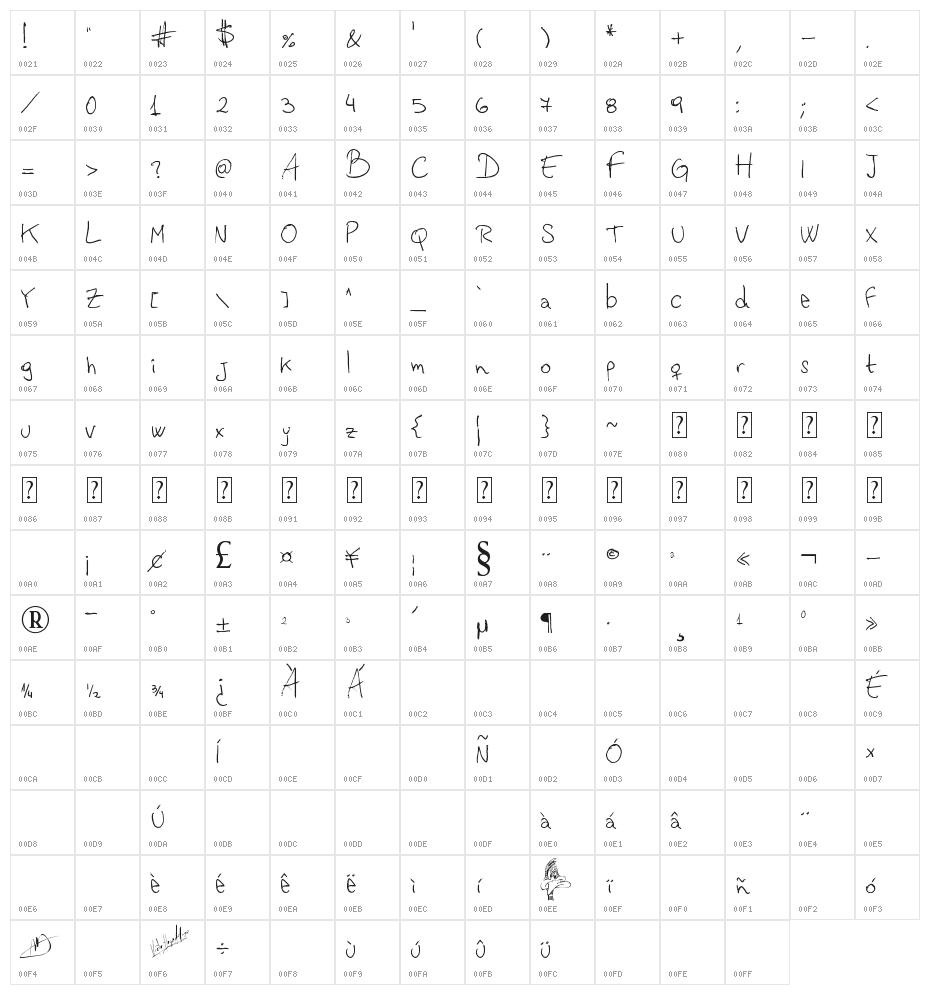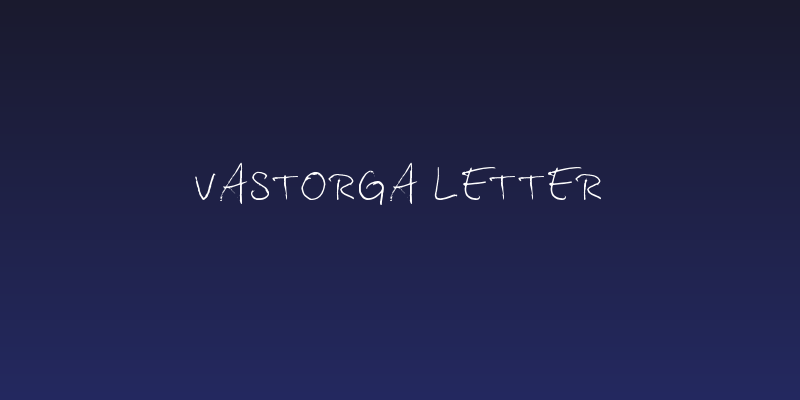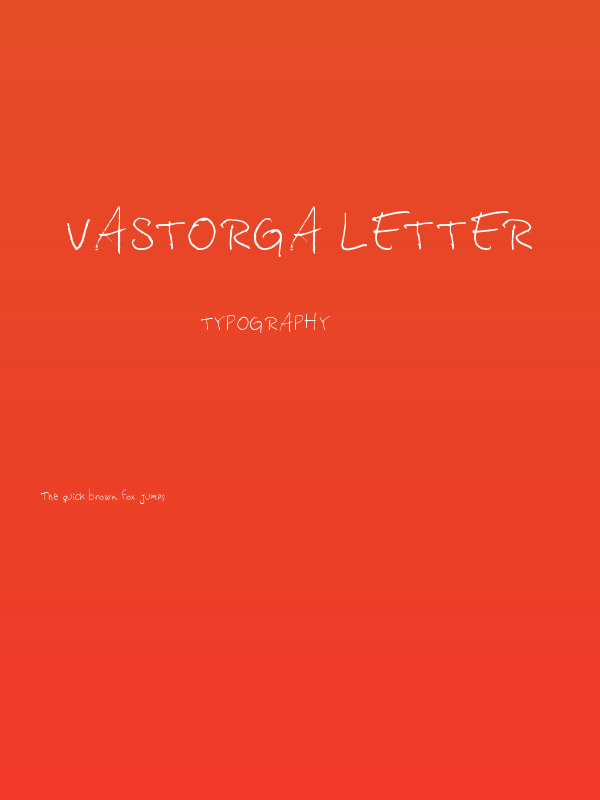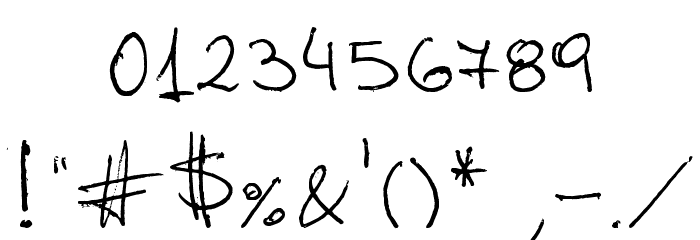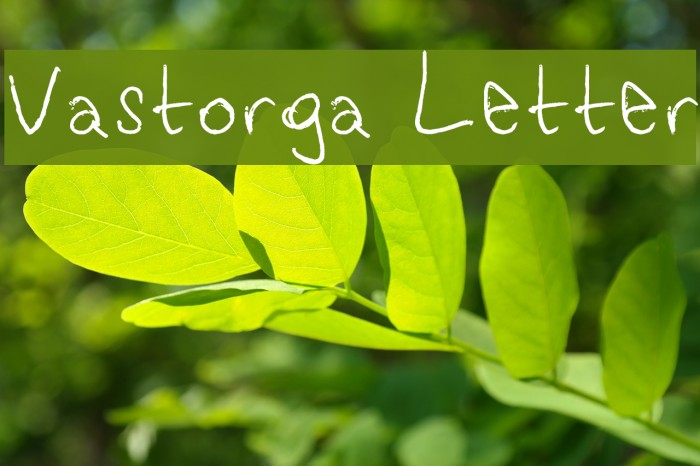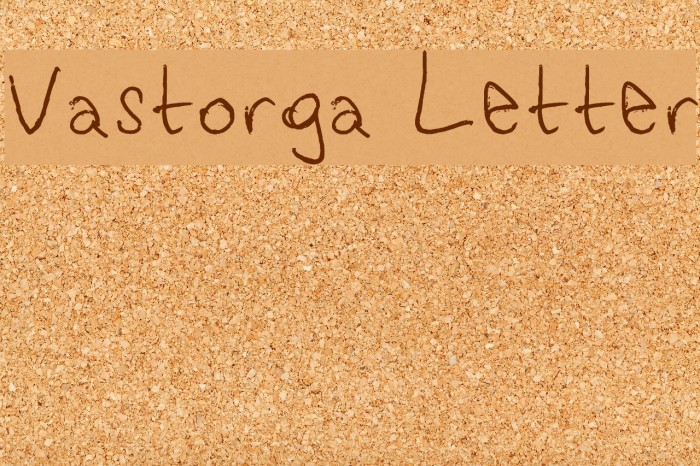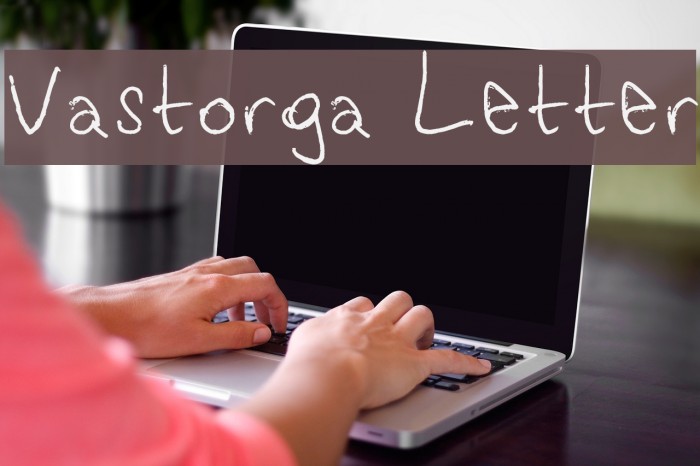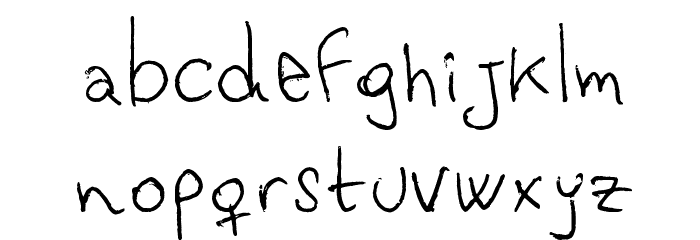
Vastorga Letter Font
Vastorga Letter Description
This font exhibits a playful and informal handwritten style, characterized by its irregular strokes and casual appearance. The letters are slightly tilted, giving a dynamic and spontaneous feel. The uppercase and lowercase letters maintain a consistent style, with some characters featuring unique loops and curves that add to the font's charm. The numbers and special characters are crafted with the same whimsical touch, ensuring a cohesive look across all elements. The overall design is reminiscent of a personal note or a casual sketch, making it ideal for projects that require a touch of personality and warmth.
VASTORGA-LETTER UPPERCASE
VASTORGA-LETTER LOWERCASE
VASTORGA-LETTER OTHER CHARS
| Use Case | Greeting cards, Personal notes, Informal invitations |
| Proposed Projects | Ideal for greeting cards, personal notes, informal invitations, and creative projects that require a personal touch. |